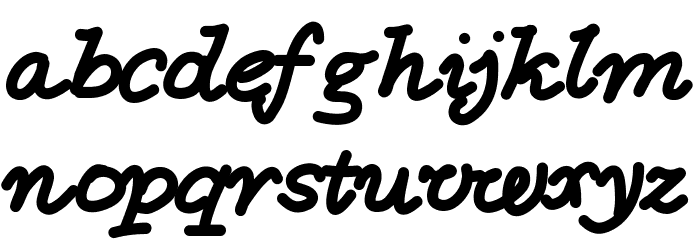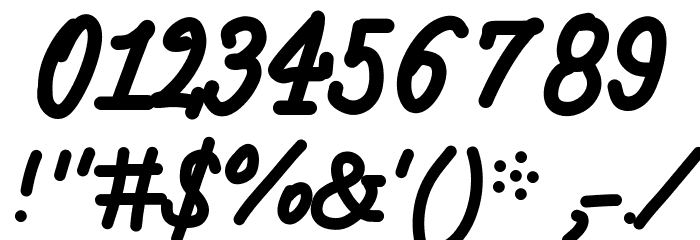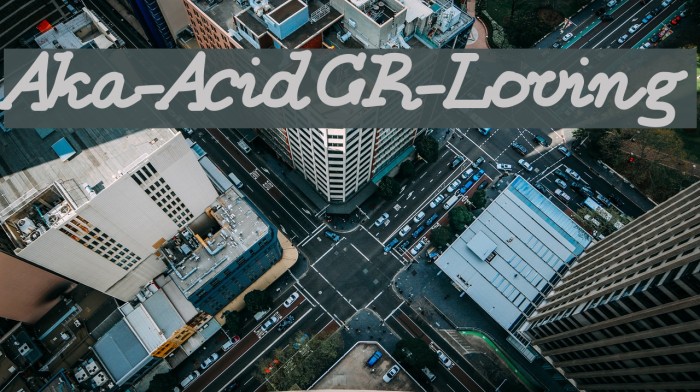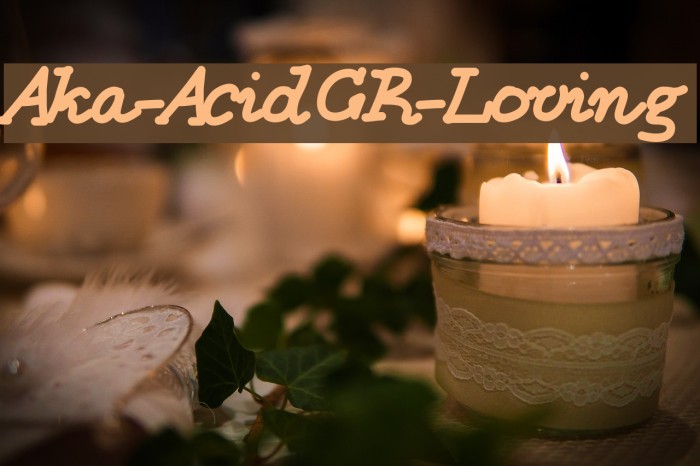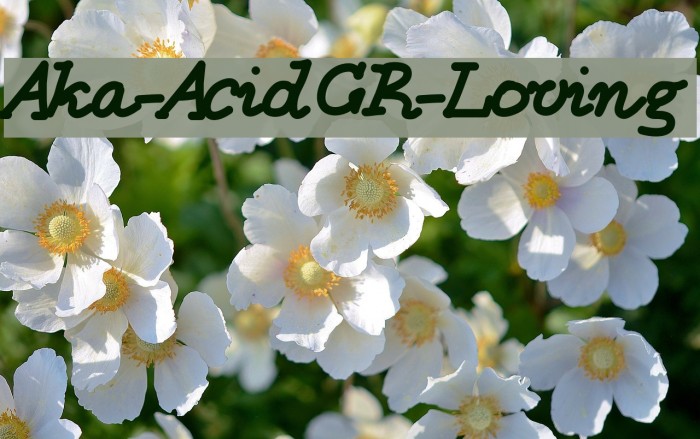
Aka-AcidGR-Loving Font
This font features a playful and dynamic script style with a handwritten appearance. The characters are bold and slightly slanted, giving a sense of movement and energy. The uppercase letters are distinct with a consistent stroke width, while the lowercase letters maintain a fluid and connected form, enhancing the handwritten feel. The numerals are bold and rounded, matching the overall style of the alphabet. Special characters are creatively integrated, maintaining the font's lively and informal aesthetic. The font's design is suitable for projects that require a personal touch or a casual, friendly vibe.
A bold, playful script font with a handwritten style.
- Proposed Projects: Ideal for greeting cards, invitations, playful branding, and social media graphics.
- Overall Style: Playful, Casual
- Use Case: Logos, Headlines, Invitations